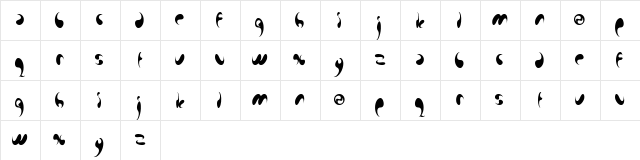
bangyang Regular Free Font
bangyang Regular
Design Context for bangyang
bangyang is a composed and adaptable typeface that performs quietly and consistently across a wide range of design contexts.